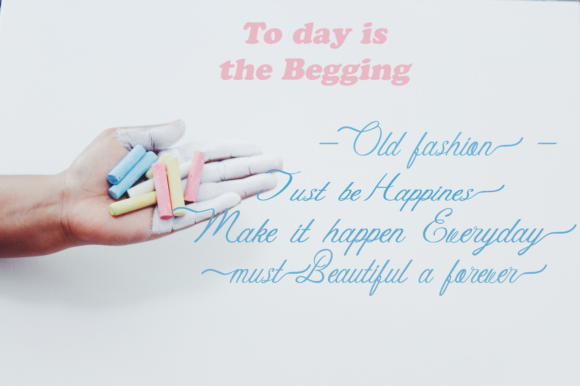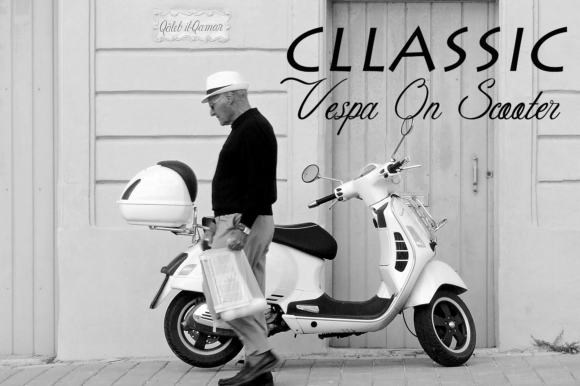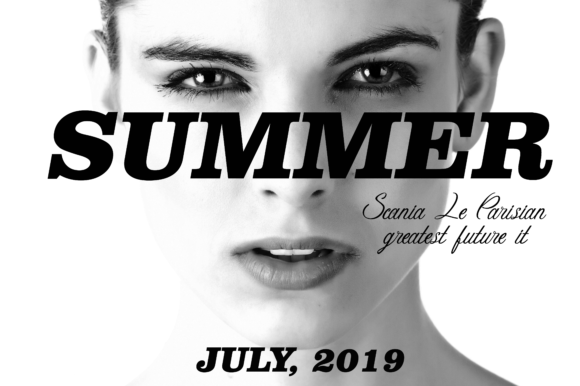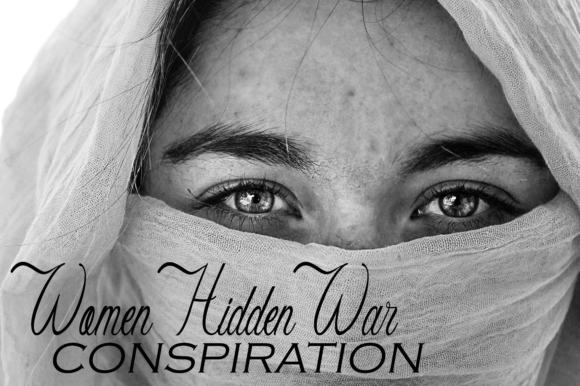
Frangfurt of Bizantium Font
About Frangfurt of Bizantium Font
Frangfurt of Bizantium is a beautiful script with a exciting look and feel. Get motivated by this exciting typeface.